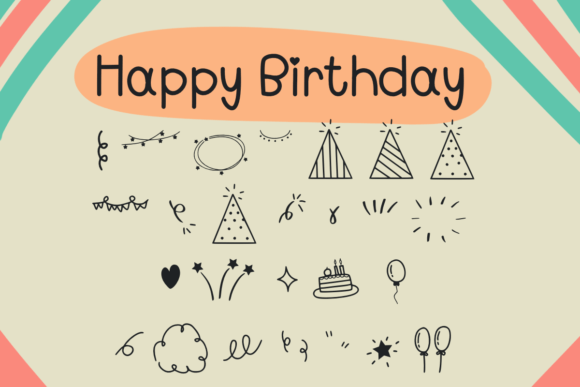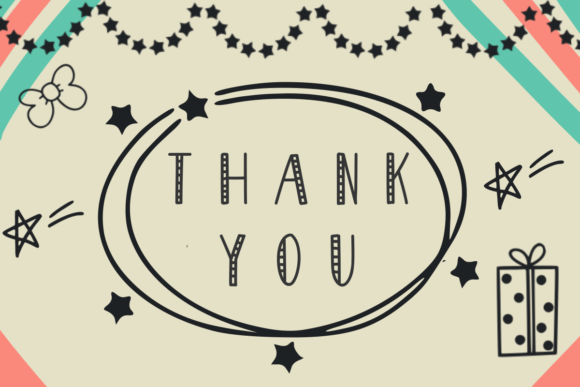
Happy Birthday Font
Introducing Happy Birthday, a delightful and versatile hand-drawn dingbats font that will bring joy and cheer to your designs. With its collection of cute and playful characters, Happy Birthday is the perfect addition to your font library for crafting, presentations, card making, worksheets, and more.
Whether you’re planning a birthday party, creating personalized greeting cards, designing worksheets for kids, or adding a festive touch to your presentations, Happy Birthday offers a wide range of adorable characters that will instantly enhance your projects. From birthday cakes and balloons to party hats and presents, this dingbats font has everything you need to create delightful birthday-themed designs.
Using Happy Birthday is simple. Just type out the desired character on your keyboard, and the corresponding cute and hand-drawn birthday element will appear. Mix and match different characters to create custom compositions or use them individually to add charming accents to your designs. The versatility of Happy Birthday allows it to be used in various creative applications, giving you the freedom to explore different styles and approaches.
Whether you prefer a whimsical and colorful aesthetic or a more minimalist and monochromatic look, Happy Birthday can be easily customized to match your desired style. Adjust the size, color, and placement of the characters to create visually outstanding designs that capture the essence of celebration and joy.
Happy Birthday is not limited to just birthdays. Its cute and versatile characters can also be used for other celebratory occasions or projects that require a touch of fun and playfulness. Let your imagination run wild and explore the endless possibilities that Happy Birthday offers.
So, whether you’re a seasoned designer, a DIY enthusiast, or someone who simply enjoys spreading happiness through creative projects, Happy Birthday is a must-have font. Its cute and useful hand-drawn characters will add a special touch to your designs and make them stand out.
Embrace the charm and versatility of Happy Birthday and let it inspire you to create outstanding designs that bring smiles to people’s faces. Add this delightful dingbats font to your creative ideas and watch your projects come to life with joy and celebration.